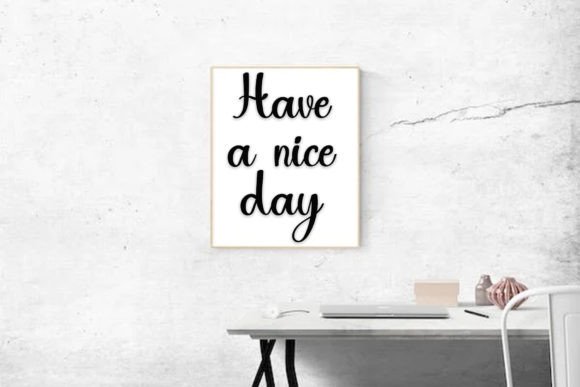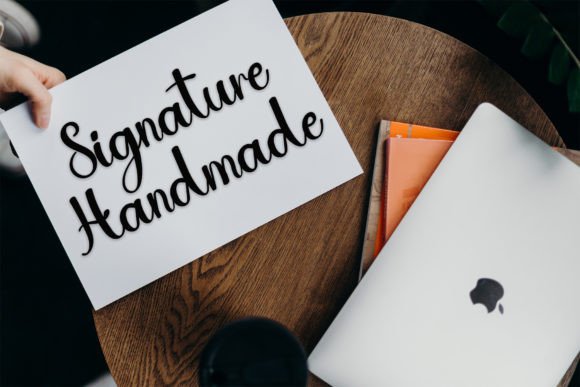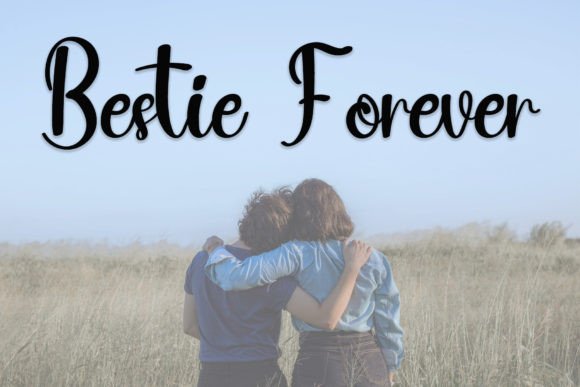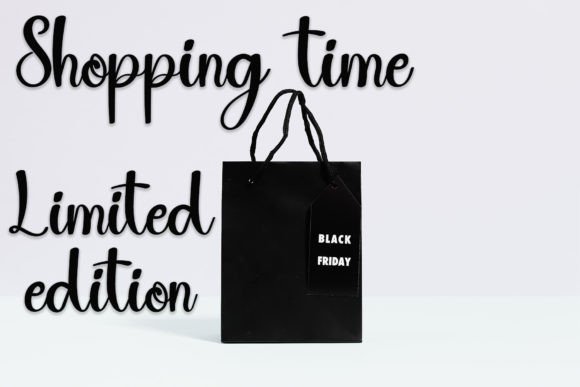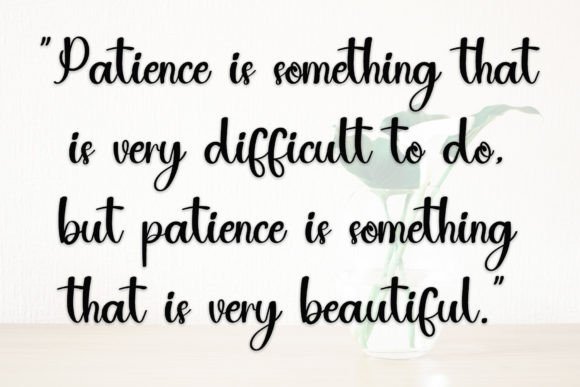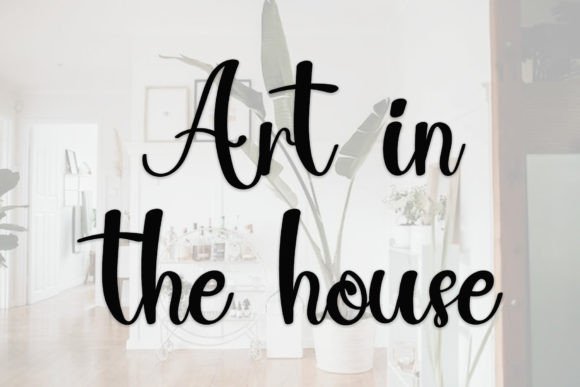
Discover the Ultimate Handwritten Font for Your Next Masterpiece
Have you ever found yourself sitting at your desk, staring blankly at a blank canvas, waiting for that spark of creativity to strike? You know the feeling – the one where everything clicks into place, and your design comes to life. For many designers, that moment is what drives us to create something truly special. And, for those who crave that unique touch, there’s one font that stands out from the rest: Beautiful Paradise Font.
Beautiful Paradise Font is more than just a pretty face – it’s a tool that brings elegance and sophistication to any project. With its distinct, handwritten style, it’s perfect for adding a personal touch to your designs. Whether you’re a seasoned pro or just starting out, this font is sure to become your go-to for creating truly spectacular designs. And, with its timeless appeal, you can be sure that your work will stand the test of time.
Beautiful Paradise Font Key Features
- Font Family: Beautiful Paradise is a unique, high-quality font family that includes 4 different font styles: Regular, Italic, Bold, and Bold Italic.
- Font Size: Beautiful Paradise is available in 4 different font sizes: 12pt, 14pt, 18pt, and 24pt, making it suitable for a wide range of applications.
- Resolution: Designed to be scalable, Beautiful Paradise can be used at various resolutions, including 72 dpi, 96 dpi, and 144 dpi.
- Unique Characteristics: This font features intricate, hand-drawn designs and elegant curves, making it perfect for creating beautiful, eye-catching typography.
Designer Review: Beautiful Paradise Font
Overall, I’d say the Beautiful Paradise Font has some lovely qualities, but also some areas where it falls short.
- The Beautiful Paradise Font has a charming, whimsical feel that’s perfect for projects that need a touch of elegance and sophistication.
- The font’s curves and flourishes add a sense of drama and flair, making it ideal for titles, headings, and other attention-grabbing elements.
- The font’s weight and line width options provide a good range of flexibility, allowing designers to adjust the style to suit their needs.
- The font’s readability can be a concern, particularly at smaller sizes or in low-contrast environments.
- The font’s lack of a clear x-height and inconsistent letter spacing can make it difficult to read and understand.
- The font’s design may not be suitable for projects that require a clean, modern, or minimalist aesthetic.
Overall, the Beautiful Paradise Font is a beautiful choice for designers looking to add a touch of luxury and whimsy to their projects. However, it’s essential to carefully consider the font’s limitations and ensure it’s suitable for the specific project requirements.
Beautiful Paradise Font: A Practical Application Guide
Use the Beautiful Paradise Font to add a touch of elegance and sophistication to your designs. Experiment with different font sizes and colors to create visual interest. Pair it with other fonts for a unique look.
The Beautiful Paradise Font is ideal for:
– Luxury brand logos and marketing materials
– High-end fashion and beauty branding
– Any design that requires a touch of luxury and sophistication
Alternatives to Beautiful Paradise Font
Pacifico is a beautiful, elegant script font that is perfect for creating a relaxing and serene atmosphere. It is ideal for use in branding, packaging, and advertising materials where a touch of sophistication is needed. Pacifico is similar to Beautiful Paradise Font in its elegant and luxurious feel, but it has a more subtle and understated appearance.
Great Vibes is a modern, cursive font that is perfect for creating a fun and energetic atmosphere. It is ideal for use in branding, packaging, and advertising materials where a touch of playfulness is needed. Great Vibes is similar to Beautiful Paradise Font in its elegant and luxurious feel, but it has a more modern and dynamic appearance.